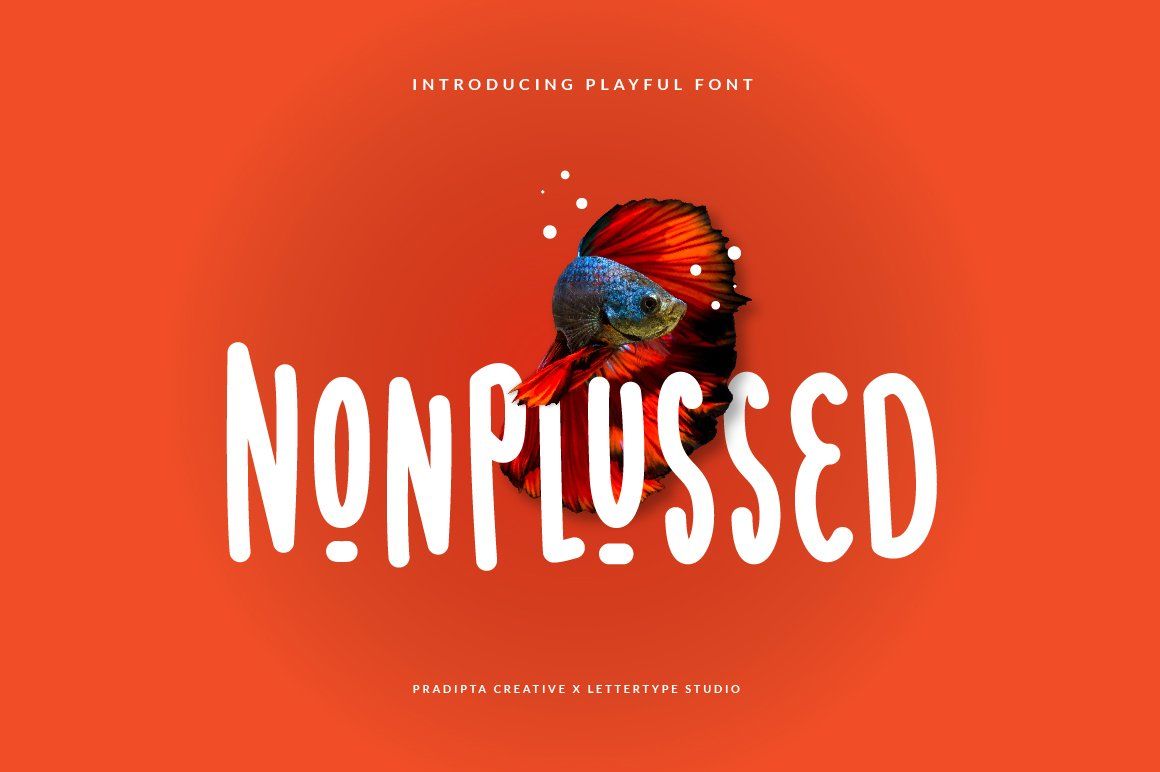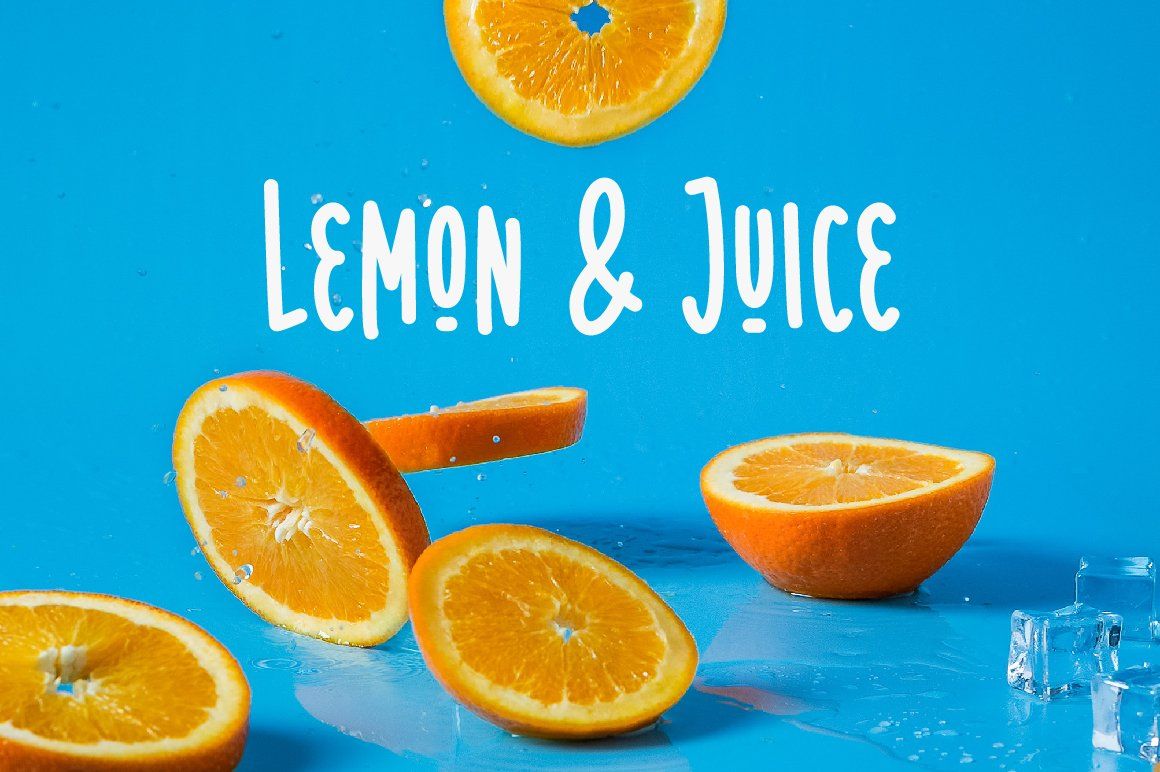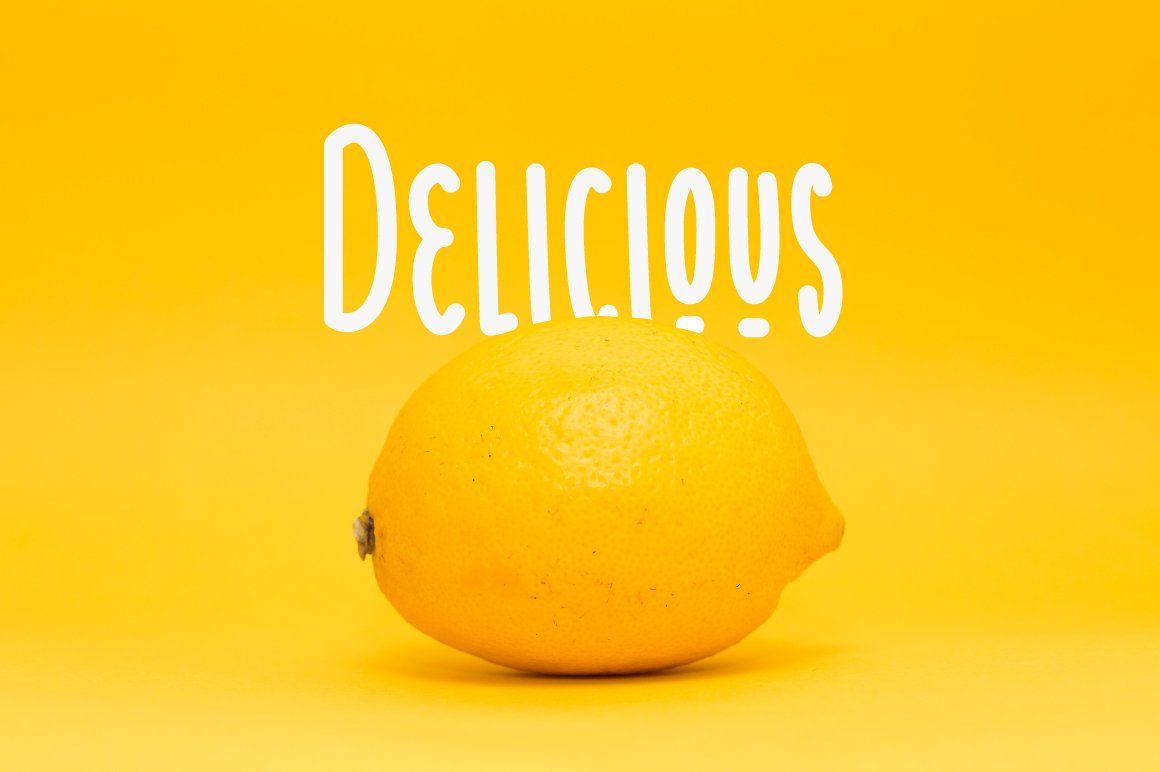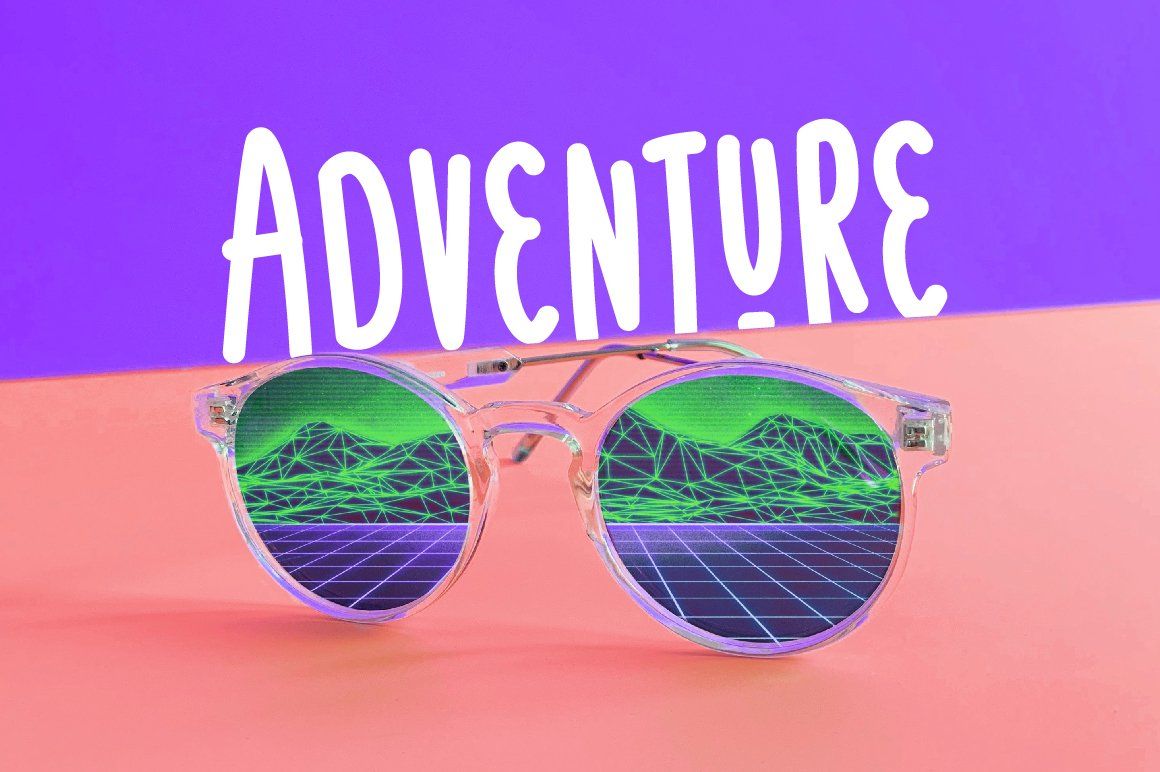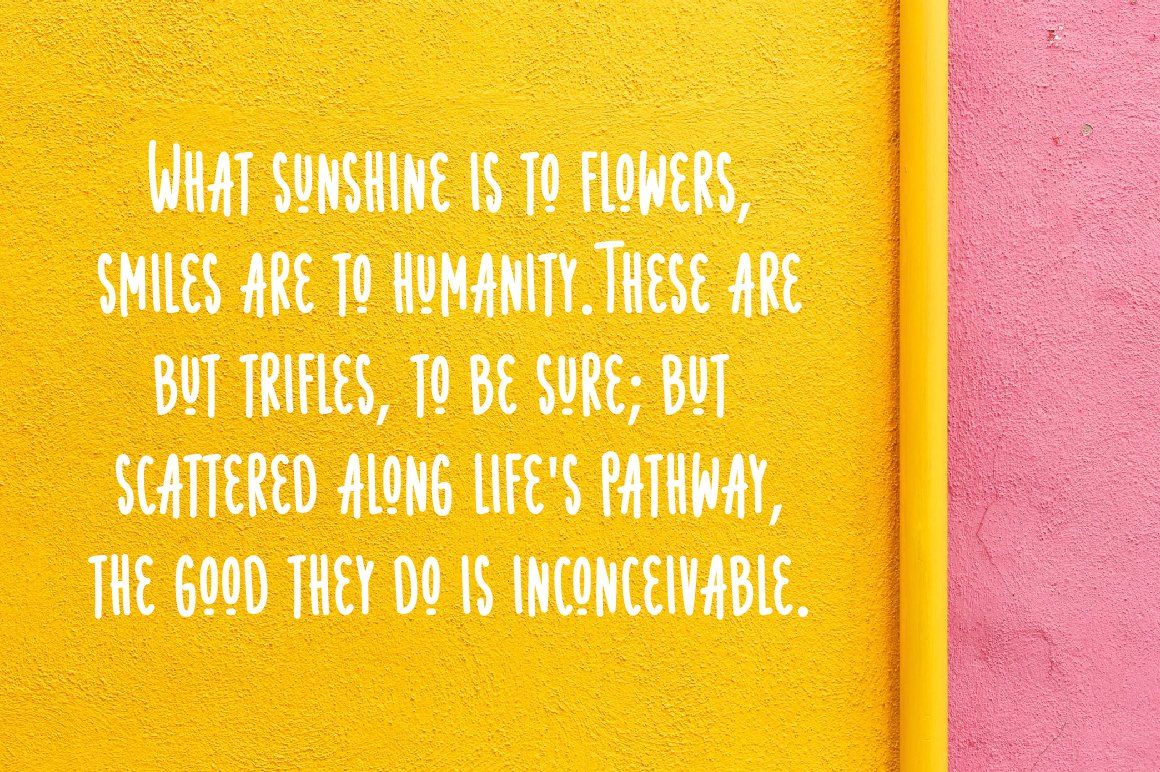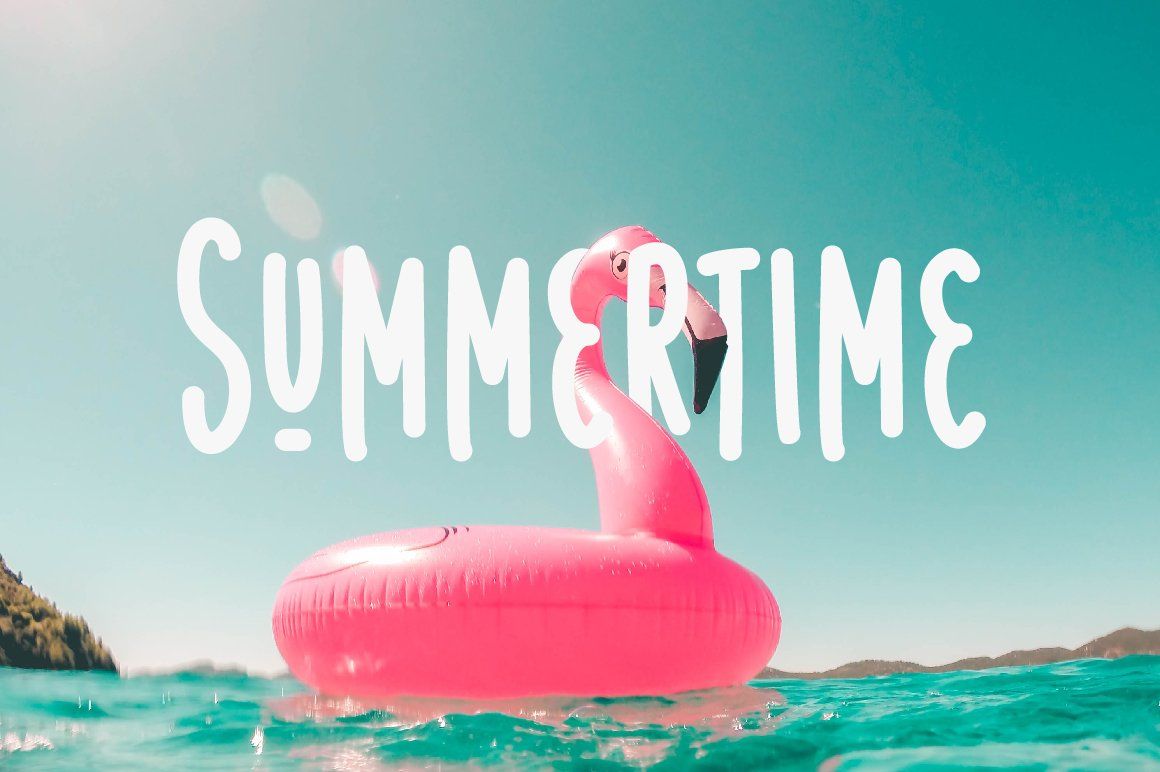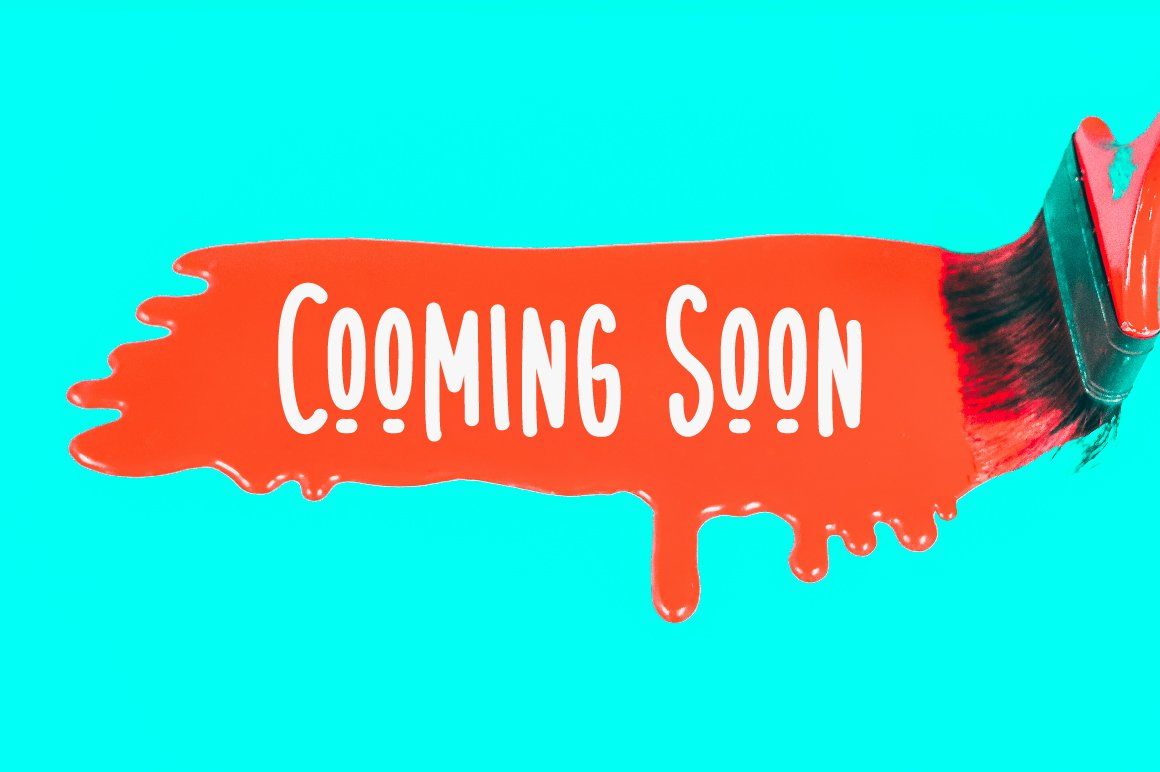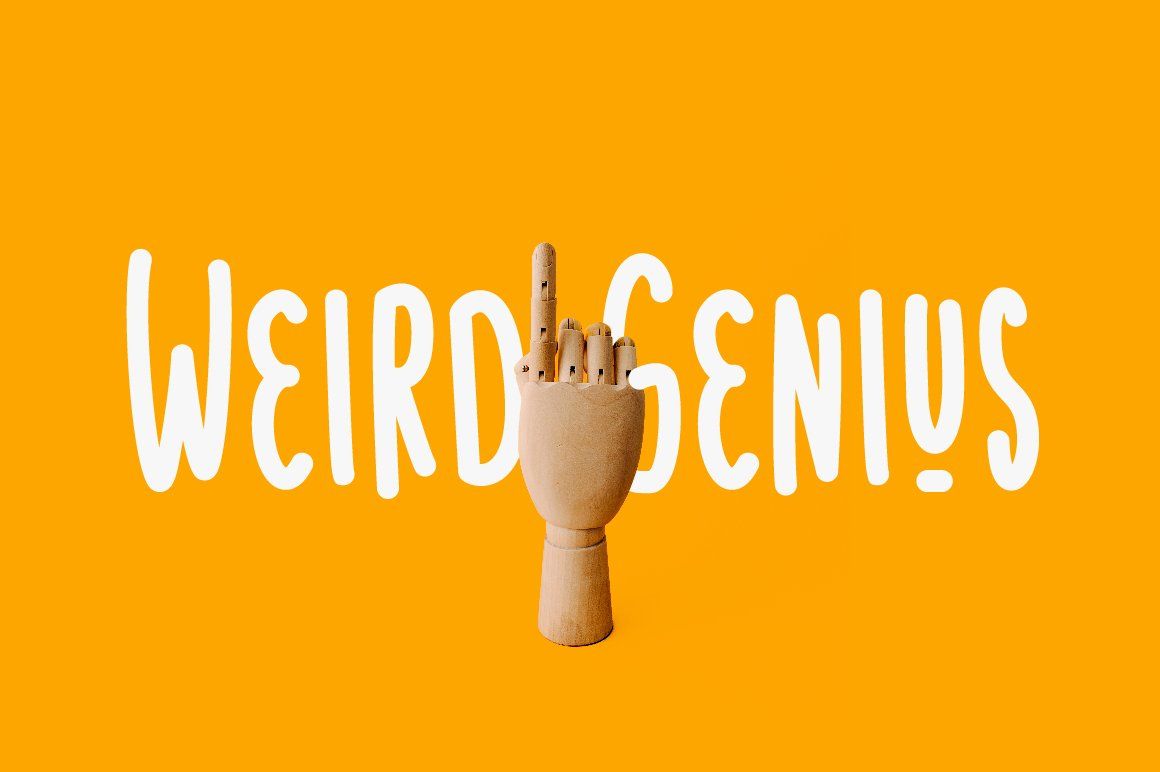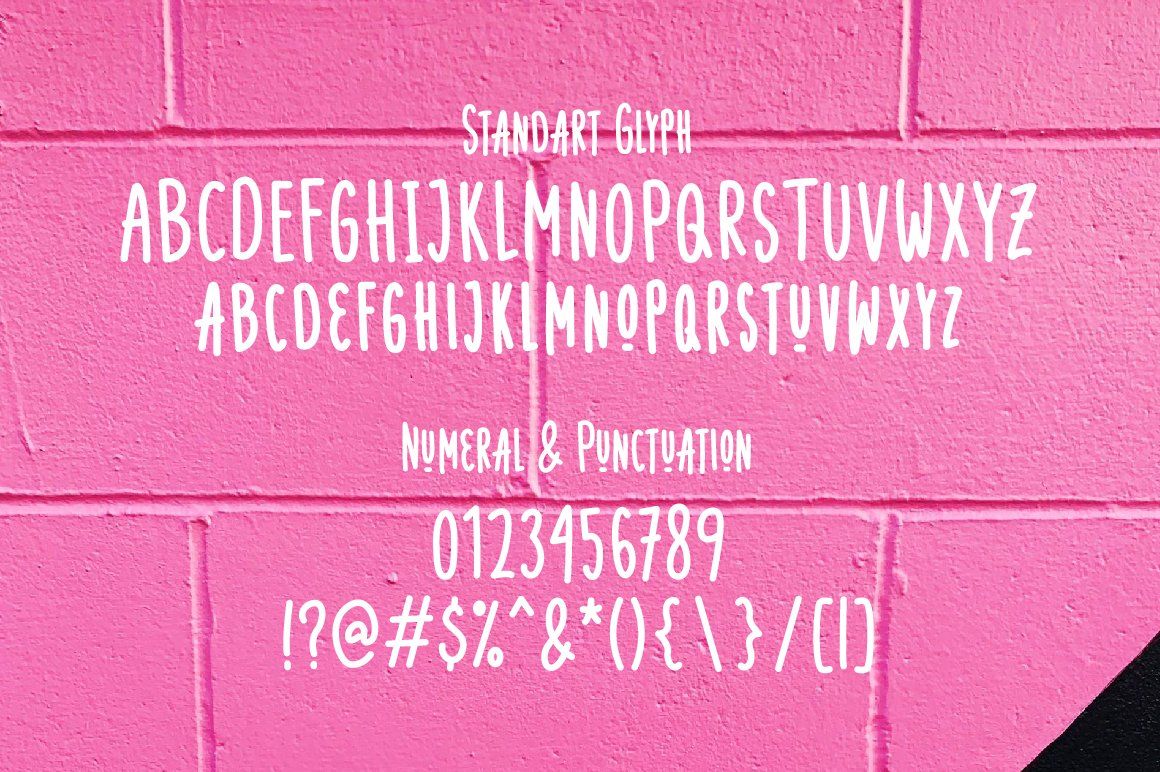
Nonplussed is a casual and playful font designed to bring fun and creativity into your projects. With its bold yet approachable style, this typeface is perfect for crafting standout headlines, unique logotypes, or eye-catching branding. Its cheerful character makes it a versatile choice for both digital and print design.
Packed with uppercase and lowercase letters, punctuation, symbols, and numerals, Nonplussed adapts seamlessly to a wide range of uses—from apparel design and packaging to invitations, advertising, and more. Whether you want to add personality to your brand or a playful twist to your creative work, Nonplussed delivers charm and impact.